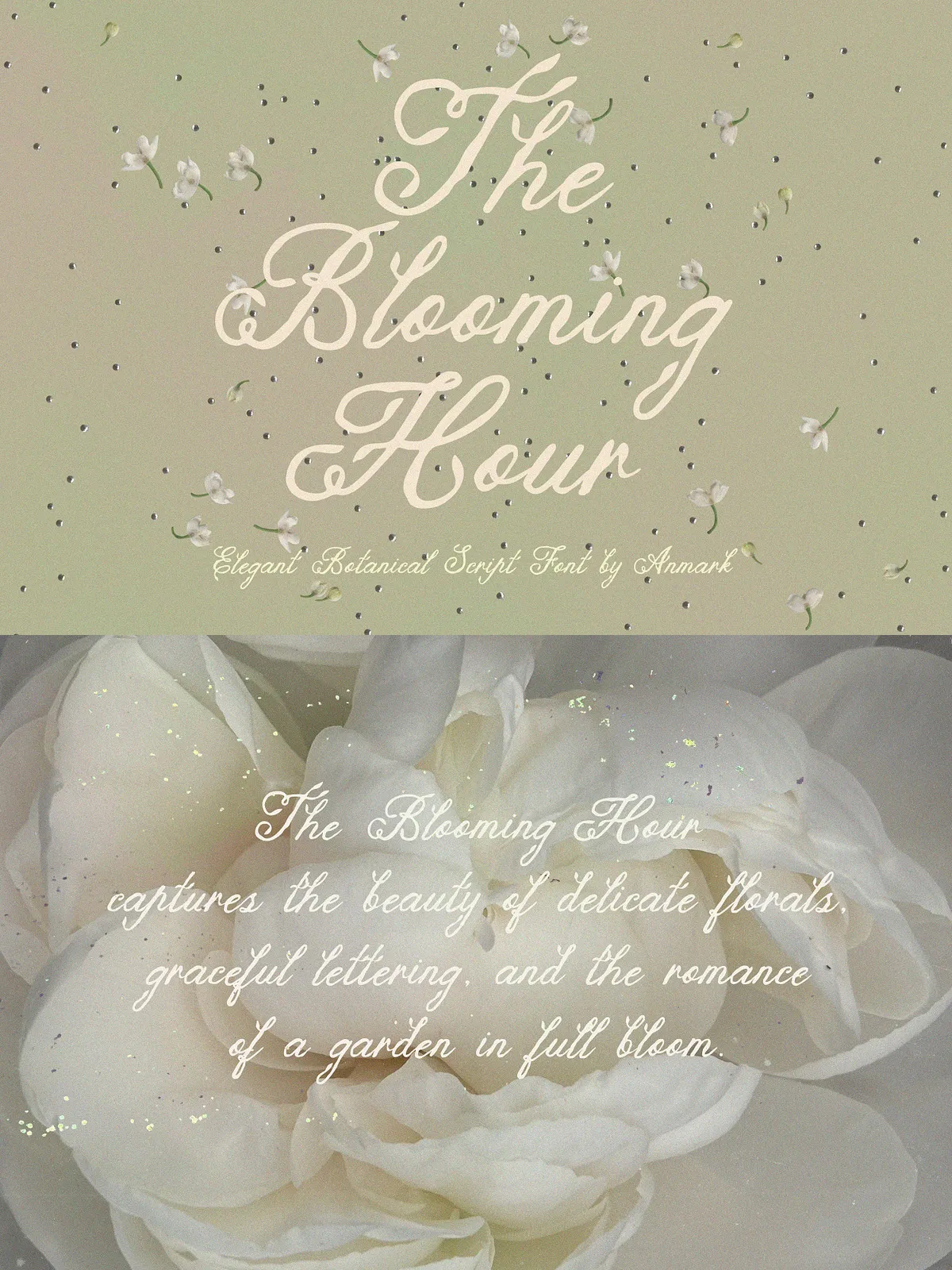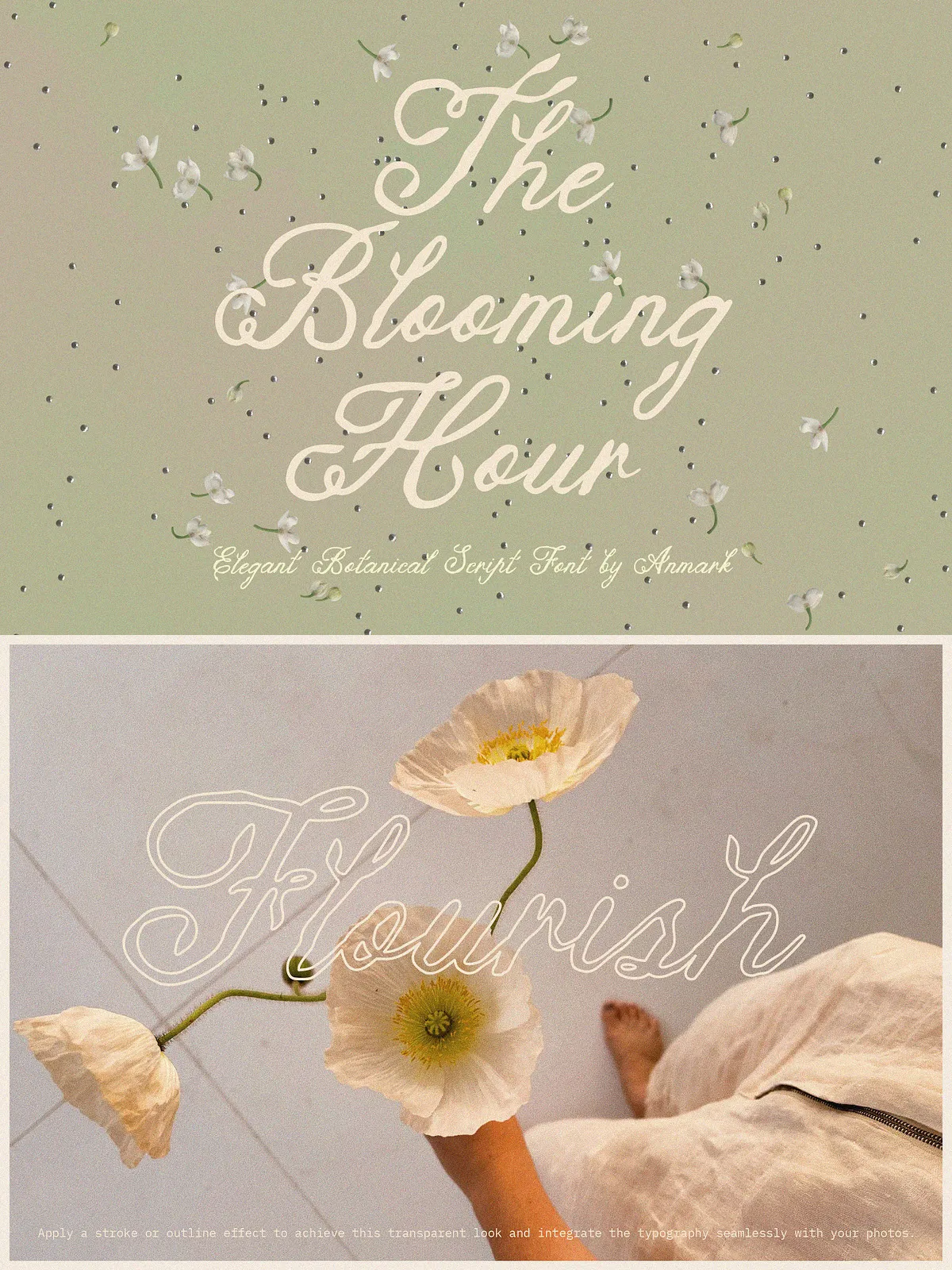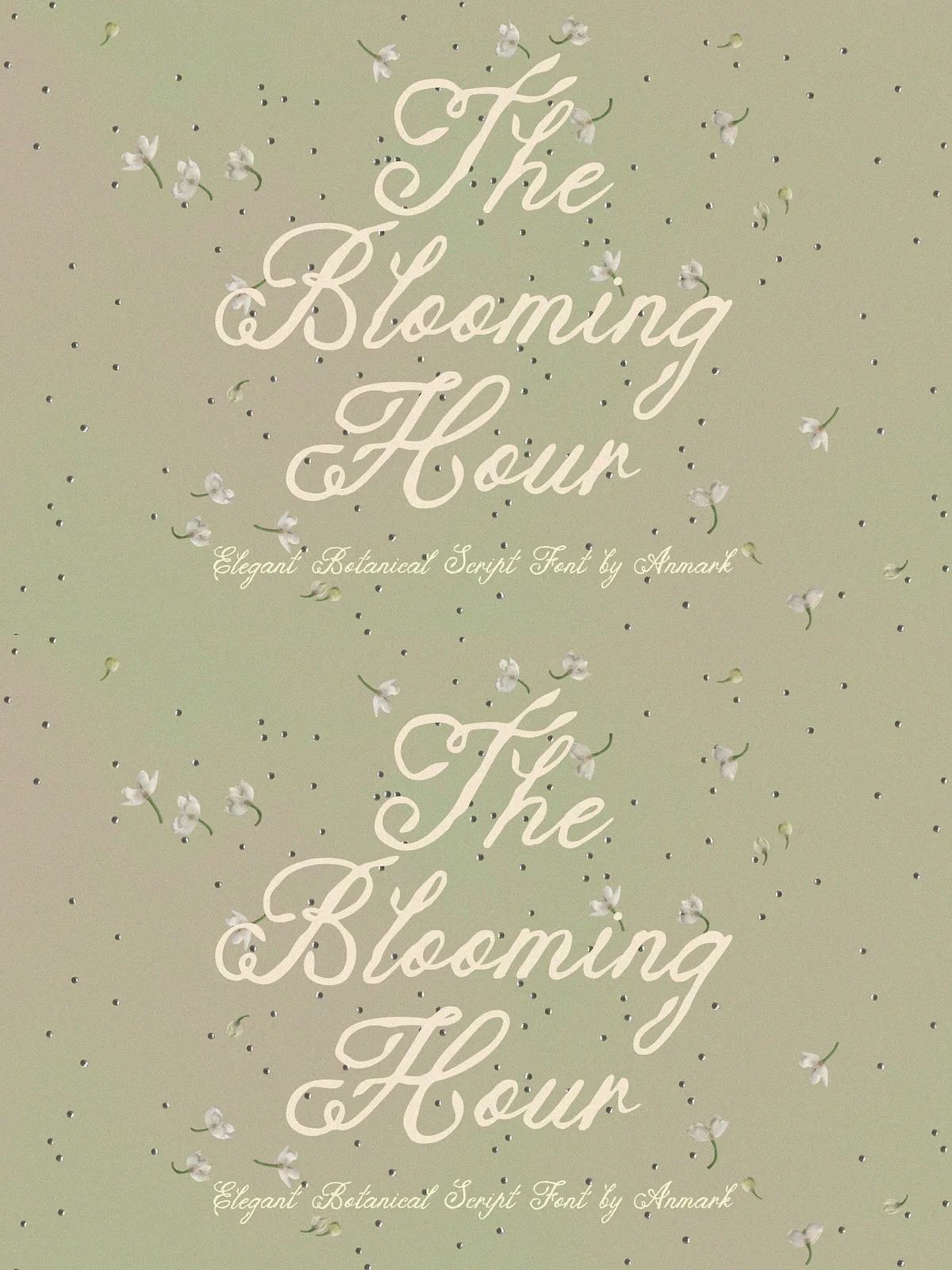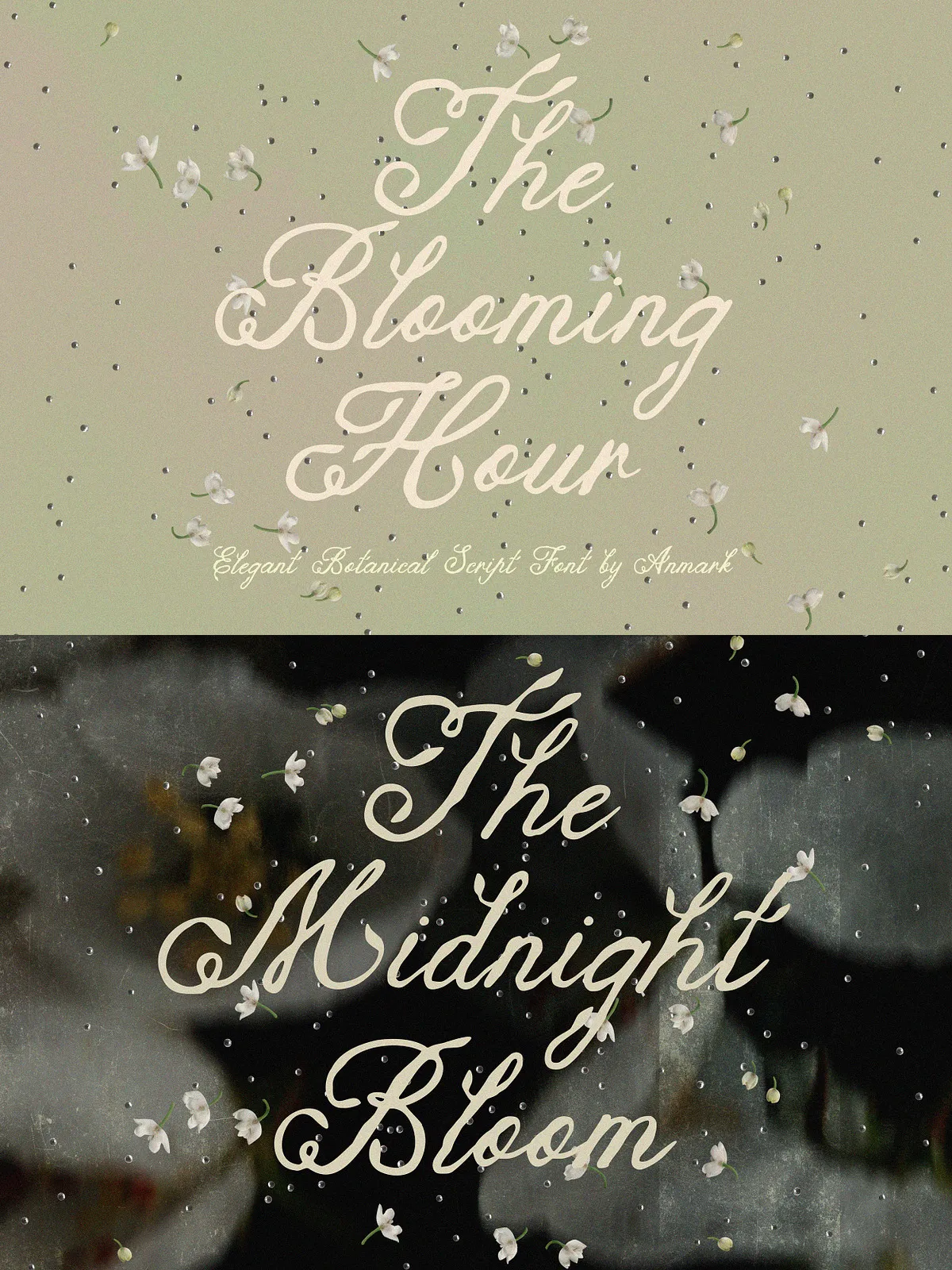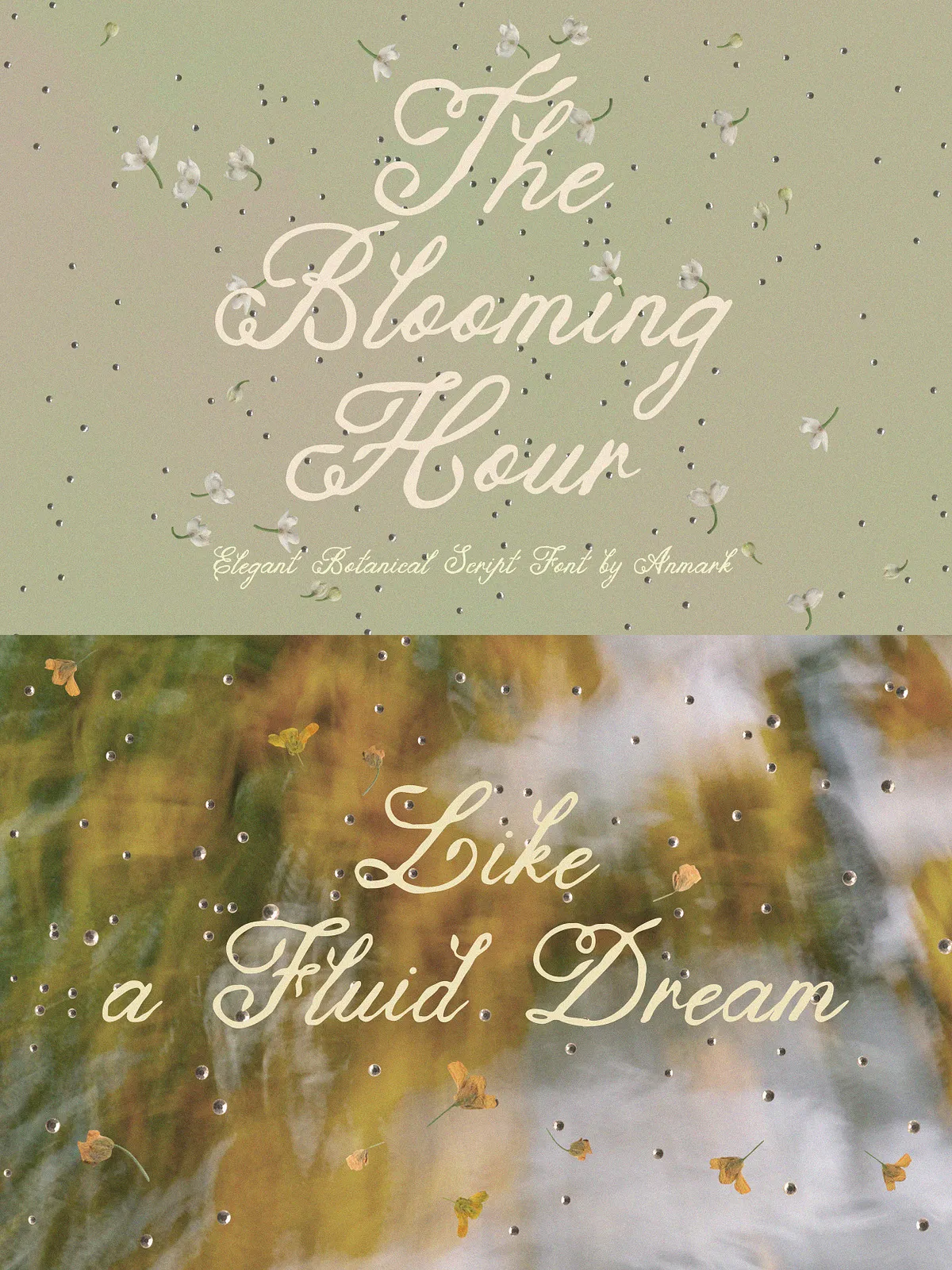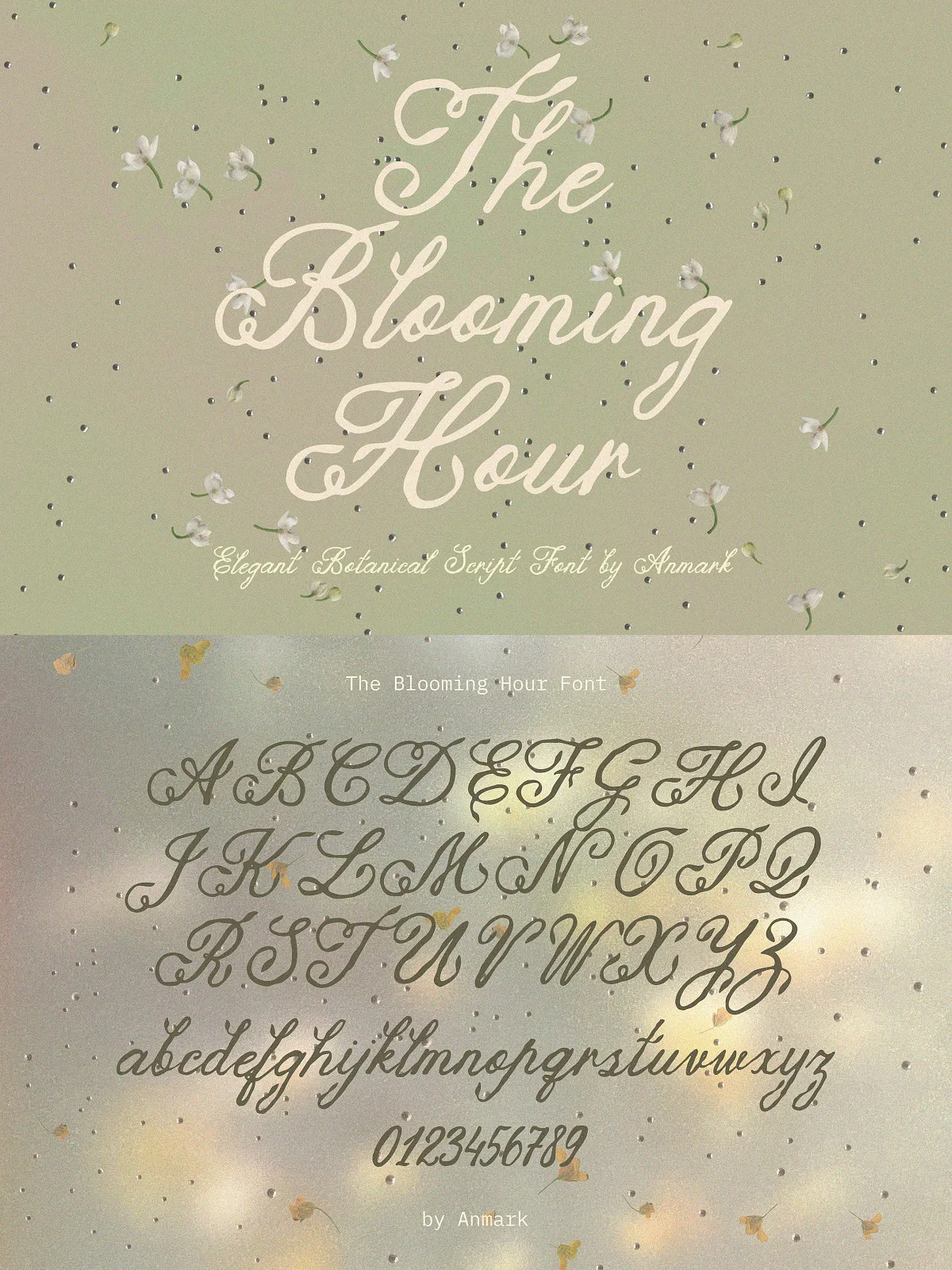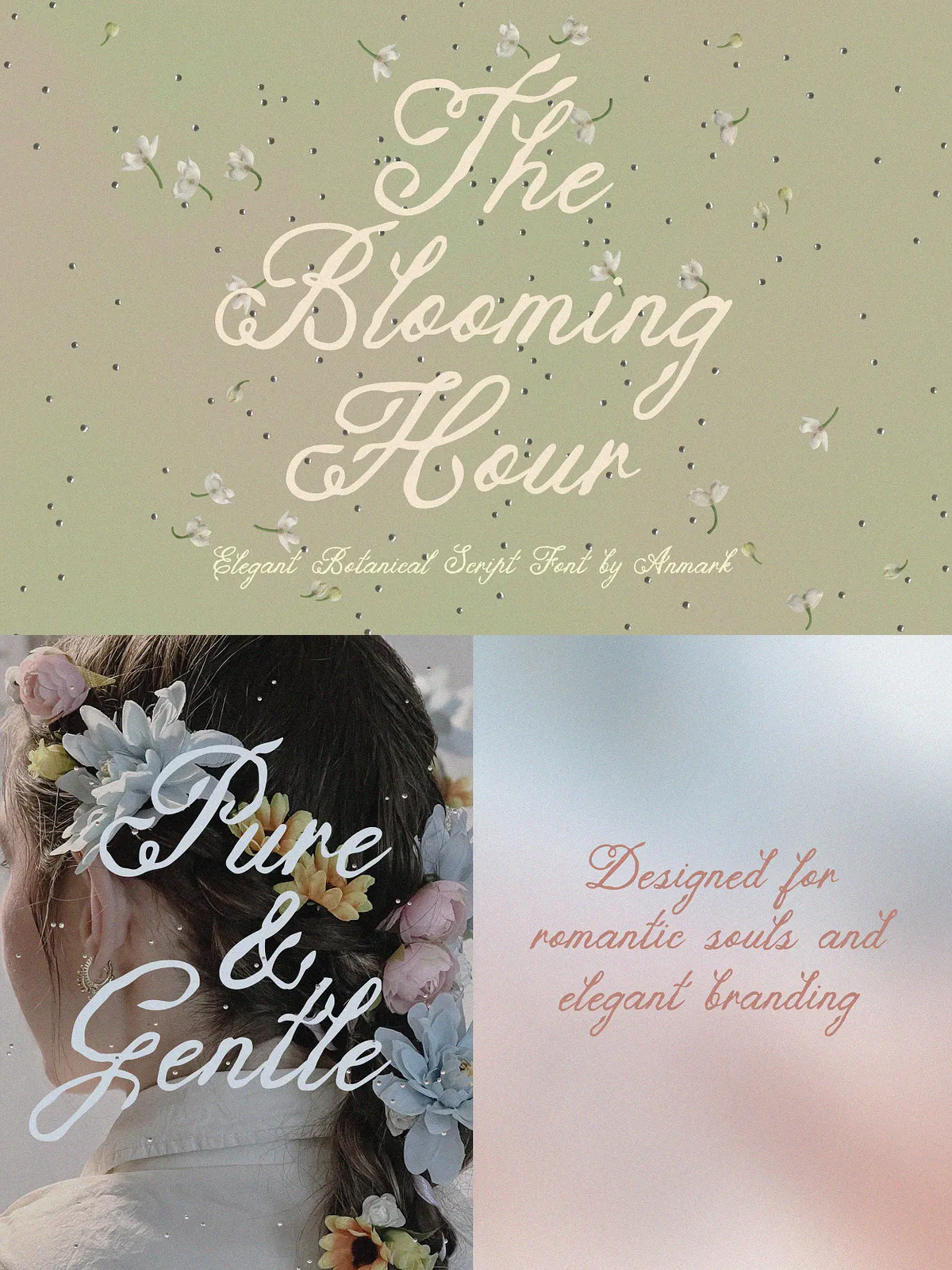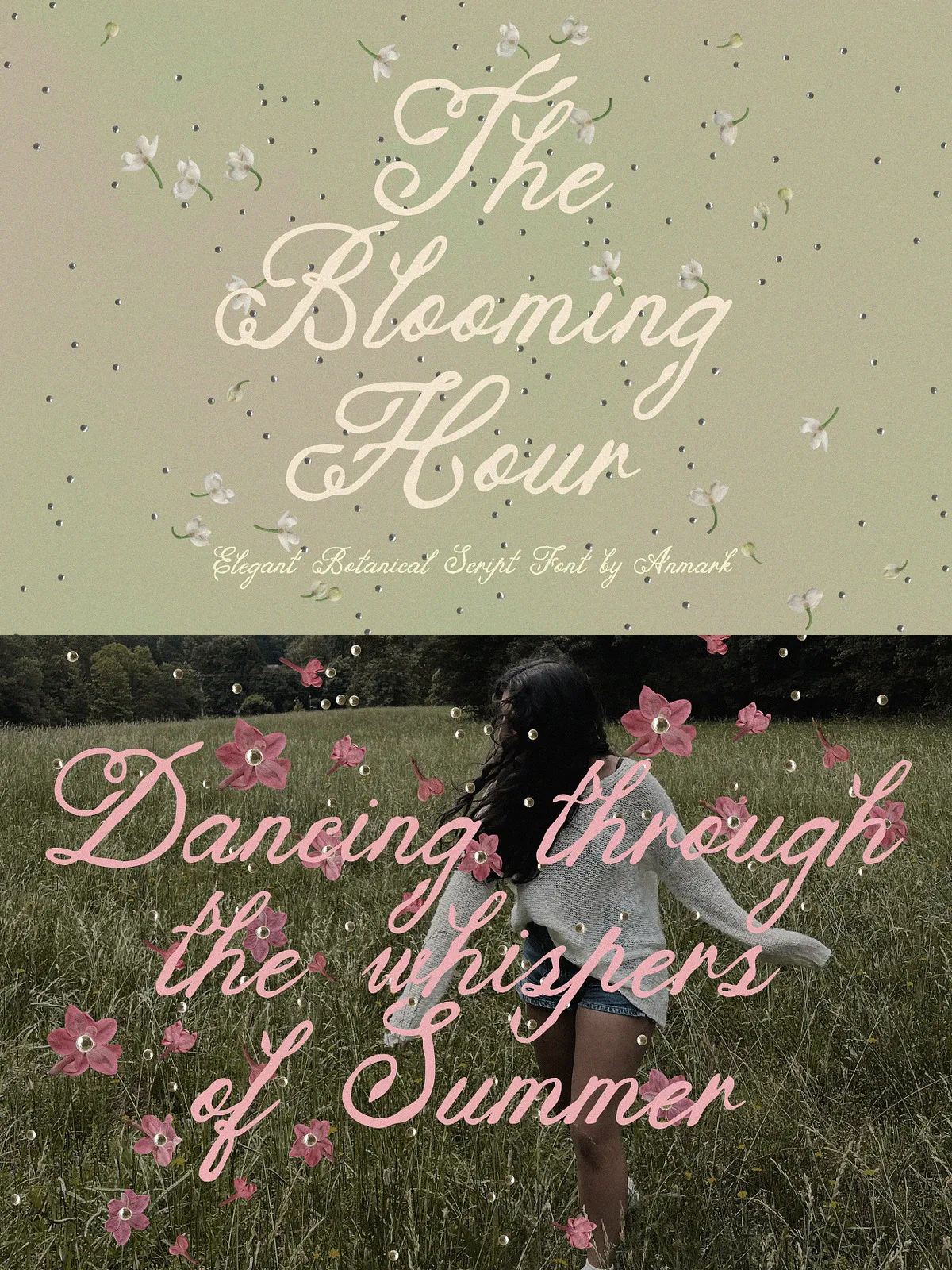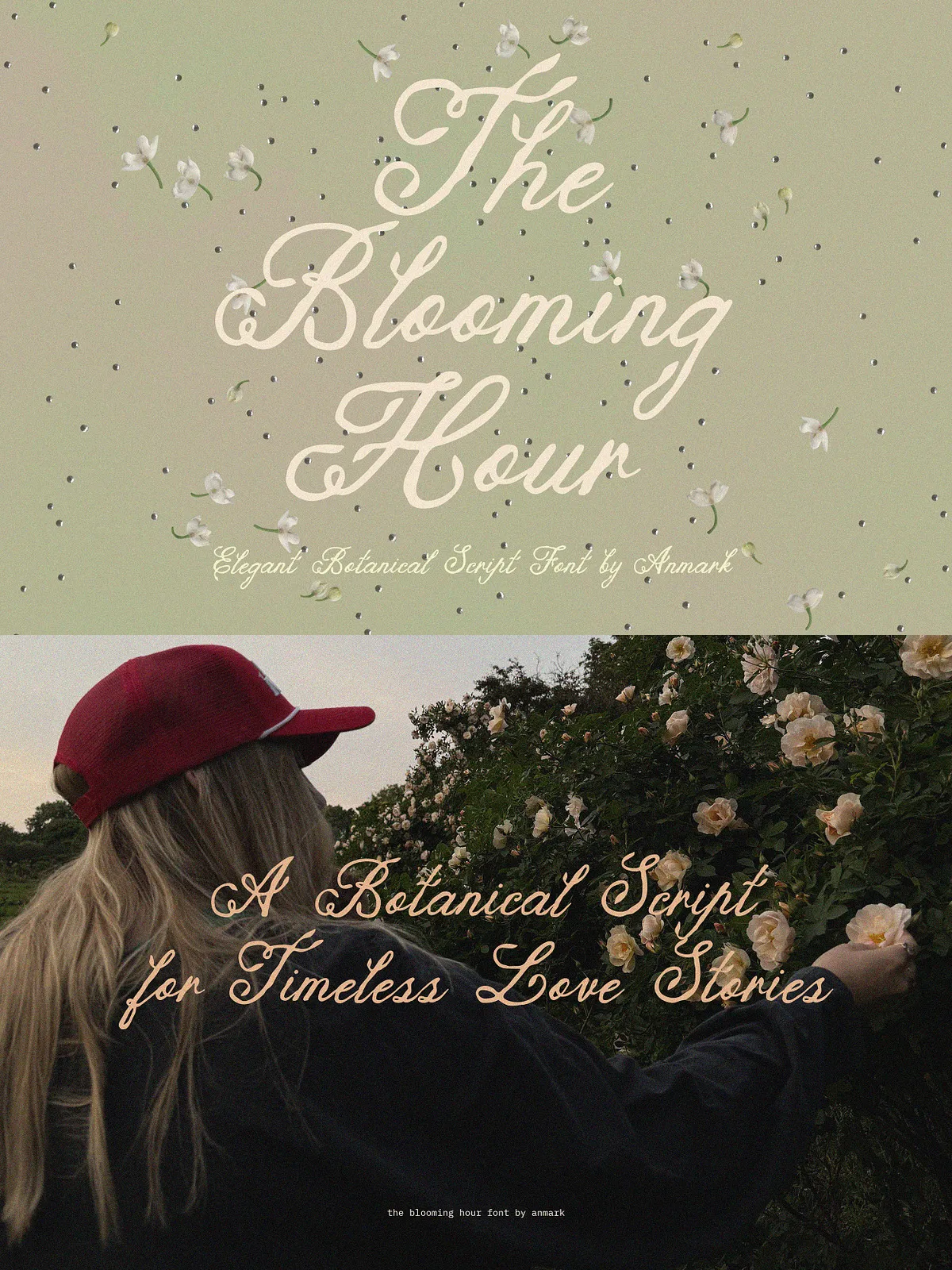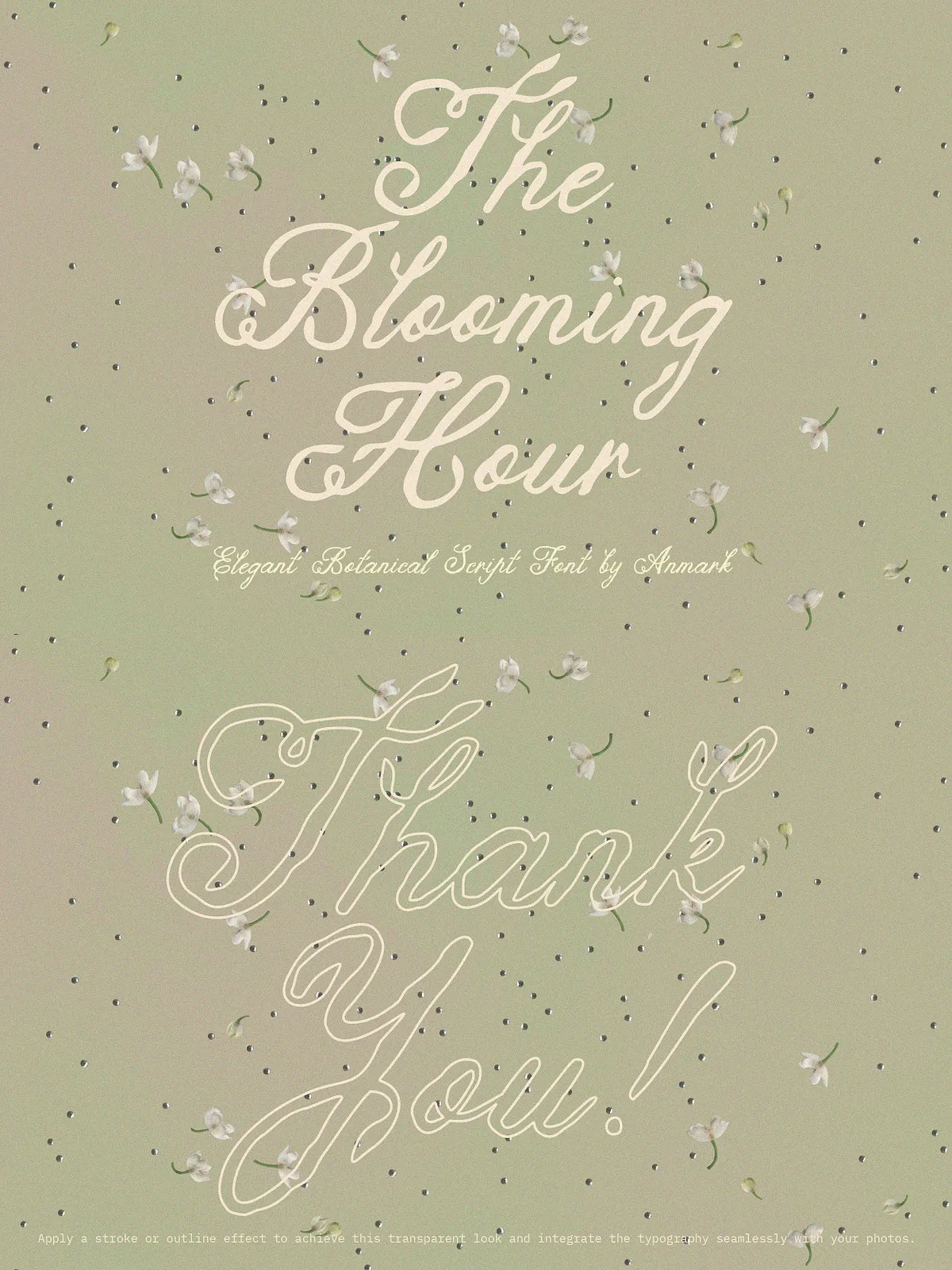
The Blooming Hour brings blooming gardens, vintage love letters, and Victorian grace into your design toolkit. This botanical script font features handcrafted letterforms, graceful curves, and subtle floral details that create an elegant, romantic voice. Designed for display usage, The Blooming Hour elevates wedding suites, luxury packaging, beauty brands, and editorial covers with a readable yet decorative presence.
Design Characteristics & Details
Handcrafted Letterforms
Each glyph in The Blooming Hour reads as a hand-written flourish. The font’s strokes flow naturally, with controlled contrast and refined terminals that maintain clarity while expressing personality. Designers will appreciate how the letter shapes preserve legibility at display sizes while conveying artisanal character.
Botanical Motifs and Delicate Flourishes
Small botanical ornaments and floral-inflected terminals integrate into the script to create a cohesive aesthetic. These elements act as tasteful accents rather than overwhelming decorations, allowing the font to communicate romance and femininity across a range of applications.
Vintage Inspiration, Modern Utility
Borrowing from Victorian calligraphy and handwritten keepsakes, The Blooming Hour balances period charm with contemporary design requirements. The result is a font that reads timeless on printed stationery and revitalizes digital hero images with tactile warmth.
Features
- Complete uppercase and lowercase glyph sets for flexible typographic hierarchy.
- Alternate characters and stylistic swashes to vary word shapes and add bespoke flair.
- Numerals, punctuation, and essential symbols for professional layouts.
- Multilingual support for Western languages to broaden your audience reach.
- Clean vector outlines tuned for crisp printing and on-screen rendering.
Ideal Applications
The Blooming Hour excels where romance, femininity, and refined vintage appeal matter. Common uses include:
- Wedding invitations, save-the-dates, and ceremony stationery
- Bridal and boutique branding, logos, and monograms
- Luxury and artisanal packaging — perfume, cosmetics, and specialty foods
- Book covers, editorial headers, and romantic editorial spreads
- Greeting cards, gift tags, and premium stationery
- Social media hero images, promotional banners, and product mockups
Pairing & Styling Recommendations
Typography Pairing
Pair The Blooming Hour with restrained, neutral companions to preserve hierarchy. A simple sans-serif or a low-contrast serif works best for body copy. Use the script for headlines, logotypes, and short display lines to keep readability optimal.
Color and Texture
Apply soft, muted palettes or classic black and gold for a high-end look. The font responds beautifully to subtle textures and print finishes — letterpress, foil stamping, and soft-touch coatings amplify its tactile quality. On screen, combine the font with paper-grain overlays or soft shadows to suggest depth without compromising clarity.
Layout Tips
Use tighter tracking for single-line logotypes and slightly increased line-height for multi-line settings to avoid flourish collisions. Activate alternates selectively to emphasize initials or to create a consistent rhythm across words.
Why Choose The Blooming Hour
The Blooming Hour blends botanical romance with practical design features. It drives emotional connection through handcrafted detail while supporting real-world projects with complete glyph coverage and alternates. Designers choose it to create memorable wedding suites, elevated packaging, and editorial work that reads both timeless and fresh.